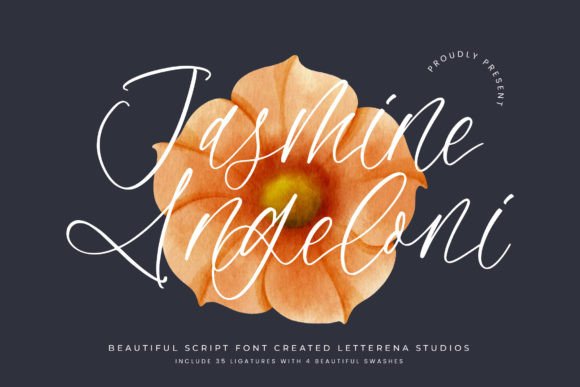
Jasmine Angeloni Font: Elevate Your Designs with Luxury and Elegance
In the world of typography, fonts play a crucial role in conveying the tone and personality of a design. Among the numerous fonts available, Jasmine Angeloni Font stands out as a luxurious script font that can elevate your designs to new heights. In this article, we’ll explore the features, benefits, and uses of Jasmine Angeloni Font, and how it can add a touch of elegance to your projects.
What is Jasmine Angeloni Font?
Jasmine Angeloni Font, also known as Jasmine Angeloni – Beautiful Script Font, is a luxury script font designed by Letterena. This font is carefully crafted to provide a sophisticated and elegant look, making it perfect for high-end designs. With its beautiful and flowing script, Jasmine Angeloni Font is ideal for adding a touch of luxury to various projects.
Benefits of Using Jasmine Angeloni Font
Using Jasmine Angeloni Font in your designs offers several benefits, including:
- Elegance and Sophistication: Jasmine Angeloni Font adds a touch of luxury and elegance to your designs, making them perfect for high-end projects.
- Versatility: This font is suitable for a wide range of projects, from logos and branding to packaging, posters, and more.
- Readability: Jasmine Angeloni Font is designed to be highly readable, even in small sizes, making it perfect for use in various applications.
- Uniqueness: With its unique and beautiful script, Jasmine Angeloni Font helps your designs stand out from the crowd.
Uses of Jasmine Angeloni Font
Jasmine Angeloni Font is a versatile font that can be used in various projects, including:
- Logos and Branding: Create a luxurious and elegant brand identity with Jasmine Angeloni Font.
- Homeware Designs: Add a touch of sophistication to your homeware designs, such as kitchenware, textiles, and more.
- Product Packaging: Elevate your product packaging with Jasmine Angeloni Font, perfect for luxury goods and high-end products.
- Mugs and Apparel: Create beautiful and elegant designs for mugs, t-shirts, and other apparel.
- Posters and Quotes: Use Jasmine Angeloni Font to create stunning posters and quotes that showcase your message in an elegant and sophisticated way.
- Book Covers and Invitations: Add a touch of luxury to your book covers, invitations, and greeting cards.
Jasmine Angeloni Font Style
Jasmine Angeloni Font is a script font with a beautiful and flowing style. Its elegant and sophisticated look makes it perfect for luxury designs. The font features:
- Beautiful Swashes: Jasmine Angeloni Font includes beautiful swashes that add a touch of elegance to your designs.
- High-Quality Glyphs: The font features high-quality glyphs, ensuring that your designs look crisp and clear.
- Multilingual Support: Jasmine Angeloni Font supports multiple languages, making it perfect for global designs.
Tips and Tricks for Using Jasmine Angeloni Font
Here are some tips and tricks for using Jasmine Angeloni Font in your designs:
- Use it Sparingly: Use Jasmine Angeloni Font sparingly to add a touch of elegance to your designs. Overusing the font can make your designs look cluttered.
- Pair it with Other Fonts: Pair Jasmine Angeloni Font with other fonts to create a unique and interesting contrast.
- Experiment with Colors: Experiment with different colors to find the perfect match for your design.
Jasmine Angeloni Font is a luxurious script font that can elevate your designs to new heights. With its elegant and sophisticated look, this font is perfect for high-end projects. Whether you’re designing a logo, branding, packaging, or more, Jasmine Angeloni Font is a great choice. Its versatility, readability, and uniqueness make it a valuable addition to any designer’s toolkit.